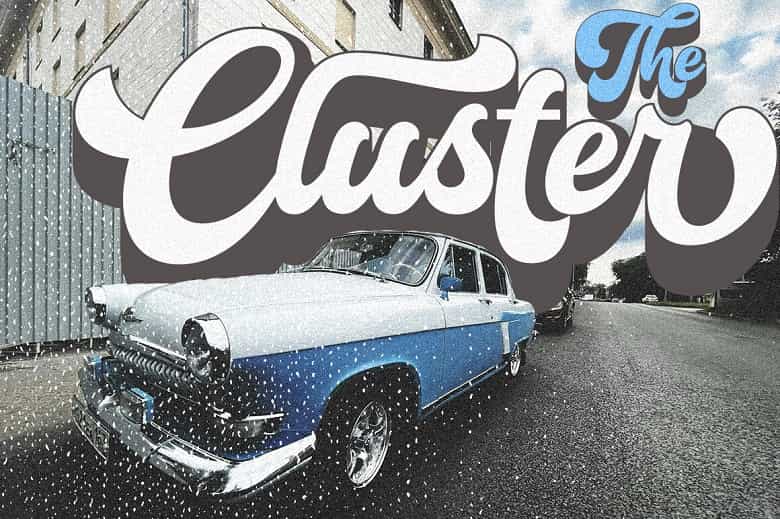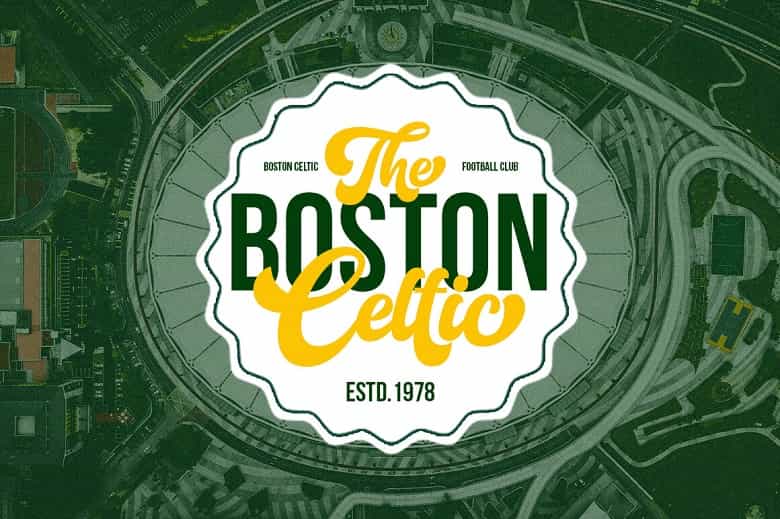
Standley is real vintage script font with old school look of the retro style. This font is fun, and has a child-like like quality to it. Standley has included many of the additional glyphs for the designers to use in order to create more unique designs using this font. It also contains extrude style to make shadow or layer for the normal one.